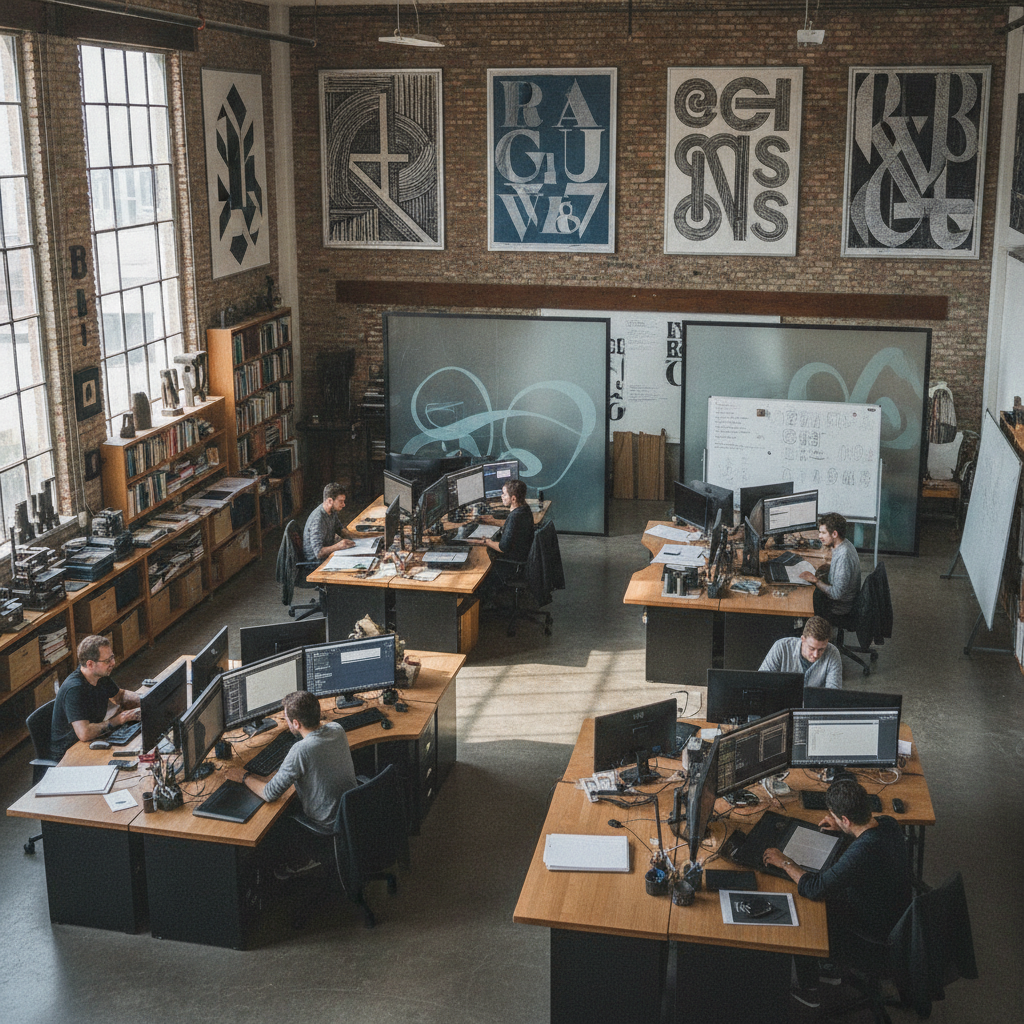
Foundries to Follow: The Type Studios Shaping Design Culture
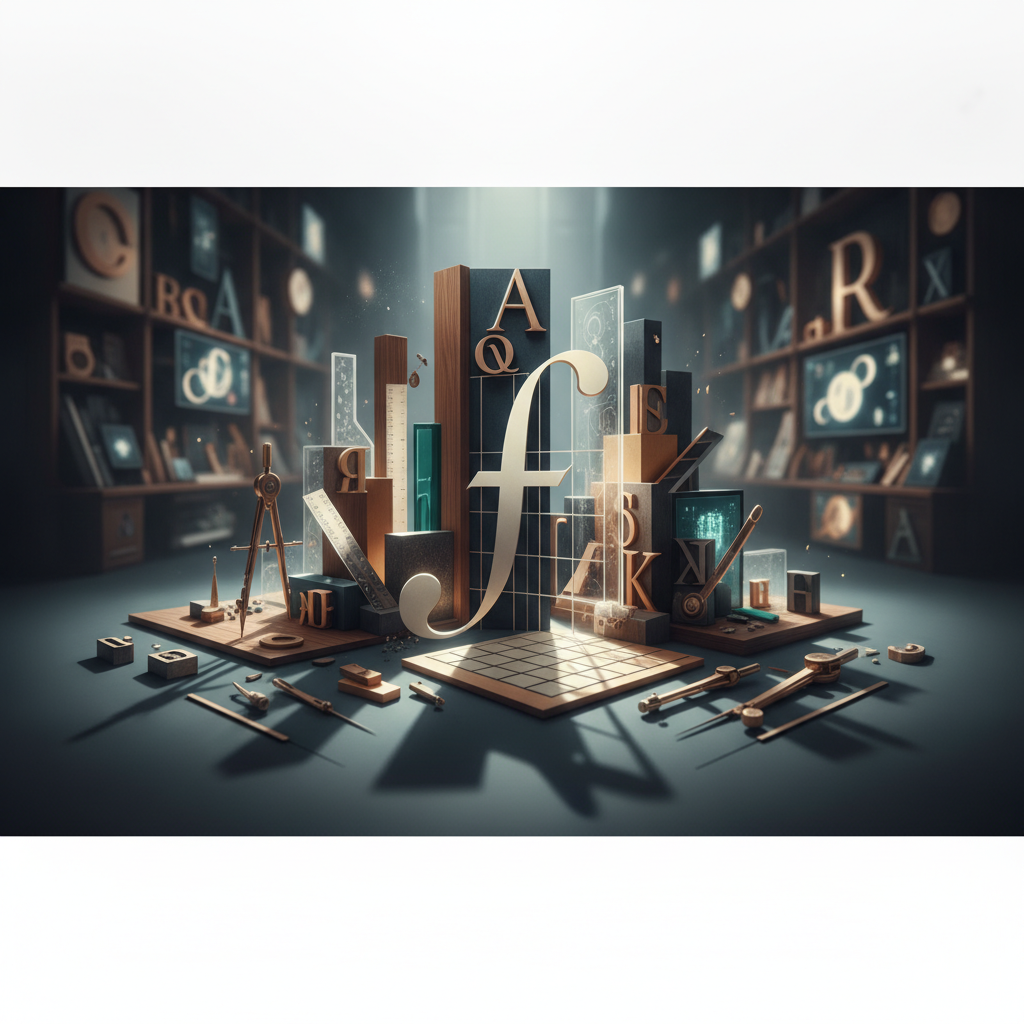
The Art of Type Design
In the realm of design culture, typography plays a crucial role in influencing how messages are conveyed and perceived. As digital and print mediums continue to evolve, so too does the need for innovative typefaces that capture the essence of modern communication. Today, we explore several type foundries that are setting new trends and redefining design aesthetics.
1. Commercial Type
Founded by renowned designers Jesse Ragan and Andy Clymer, Commercial Type is celebrated for its unique approach to type design. Their focus lies in creating typefaces that are not only functional but also visually striking. Commercial Type often collaborates with various brands and artists, thereby pushing the boundaries of typography in contemporary design.
"Typography is the craft of endowing human language with a durable visual form." – Robert Bringhurst
2. TypeTogether
TypeTogether is a collaborative type foundry that emphasizes the importance of diversity in design. With a commitment to creating high-quality typefaces that support a wide range of languages and scripts, TypeTogether brings together some of the most talented type designers from around the world. Their typefaces are known for their beauty and functionality, making them favorites among designers.
3. Colophon Foundry
Colophon Foundry is a boutique type foundry based in the UK, known for its attention to detail and craftsmanship. The studio prioritizes the unique character of each typeface, ensuring that they resonate with both designers and end-users. Their portfolio includes a diverse array of typefaces that cater to various design needs, all while maintaining a distinct aesthetic.
4. Letterform Archive
While not a traditional foundry, Letterform Archive serves as a vital resource for type design enthusiasts. This non-profit organization preserves and promotes typographic heritage through a vast collection of type specimens, books, and ephemera. Their commitment to educating the public about the history and impact of typography plays a significant role in shaping design culture today.
5. Foundry376
Foundry376 is a relatively new player in the type foundry scene, but they have quickly made a name for themselves with their bold and experimental typefaces. Their work often challenges conventional design norms, making them a go-to choice for innovative projects. Foundry376's emphasis on creativity and originality keeps them at the forefront of the ever-changing design landscape.
Conclusion
The world of typography is vibrant and continuously evolving, with various foundries leading the charge in shaping design culture. Each of these studios brings a unique perspective and approach to type design, enriching the visual language we use every day. As we look to the future, it is clear that these foundries will continue to play a pivotal role in defining the aesthetics of communication in our digital age.